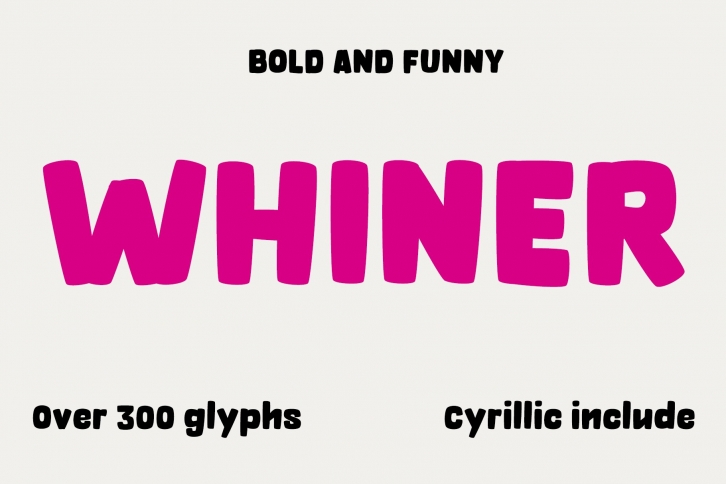
OT Whiner is a playful bold font. Font include several standard and discretionary alternatives. Include Latin 2 and Cyrillic 1 language set. Good for decorative layout in posters, package, postcards.